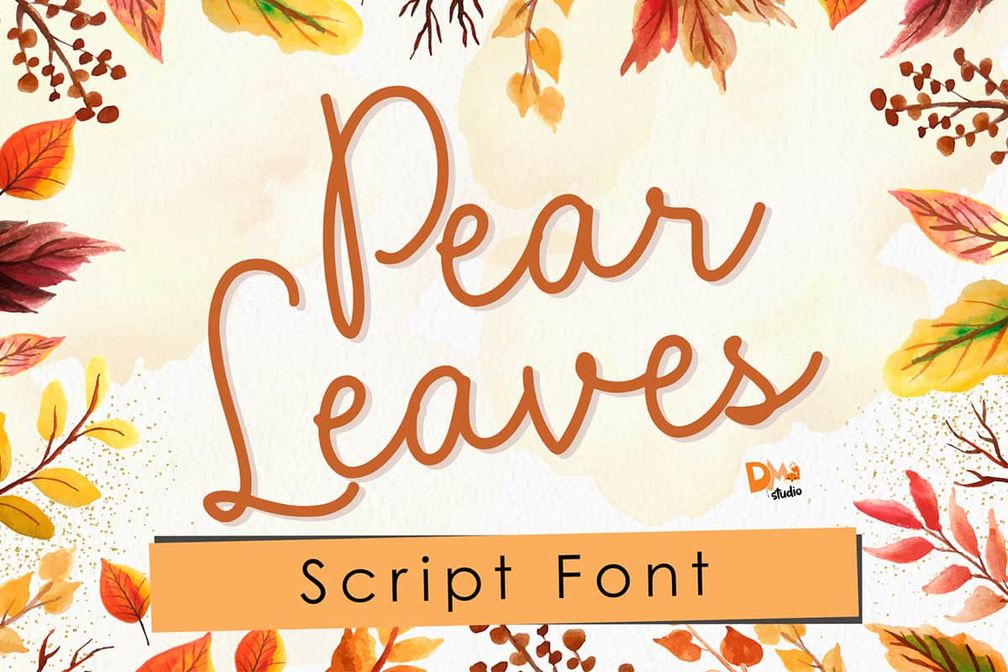
Pear Leaves – Autumn Script Font
The Pear Leaves Autumn Script Font is a charming and elegant typeface that captures the essence of autumn with its delicate script style and nature-inspired details. With its graceful letterforms and leafy accents, this font brings a touch of warmth and seasonal beauty to your designs, making it perfect for fall-themed projects, seasonal branding, invitations, and more.
1. Autumnal and Graceful Style: The Pear Leaves Font exudes an autumnal and enchanting aesthetic. Its delicate script letterforms and leafy accents create a sense of seasonal beauty and elegance, making it ideal for projects that celebrate the magic of fall.
2. Nature-Inspired Design: The font’s leafy accents and nature-inspired details add a touch of organic beauty to your typography. It captures the essence of autumn leaves and brings a sense of warmth and coziness to your designs.
3. Versatile Application: This font is versatile and well-suited for various design projects that embrace the spirit of autumn. Use it in fall-themed branding, seasonal marketing materials, invitations, social media graphics, and more to infuse your designs with a touch of seasonal charm.
4. Uppercase and Lowercase Letters: The font includes both uppercase and lowercase letters, providing flexibility and creative freedom in your designs. Mix and match the cases to create visually appealing and balanced typography.
5. Ligatures : The Pear Leaves Font offers a range of ligatures that enhance the visual interest of your text. These special characters create unique connections between letters and decorative flourishes, allowing you to create elegant and captivating typography.
6. Punctuation and Symbols: In addition to the alphabet, the Pear Leaves Font includes a comprehensive set of punctuation marks, numerals, and common symbols. This ensures consistency and ease of use when incorporating the font into your design projects.
Embrace the beauty and charm of autumn with the Pear Leaves Autumn Script Font. Let its graceful letterforms and leafy accents bring a touch of warmth and seasonal magic to your fall-themed projects, branding, and invitations. Celebrate the beauty of nature and create designs that evoke the coziness and splendor of the fall season.